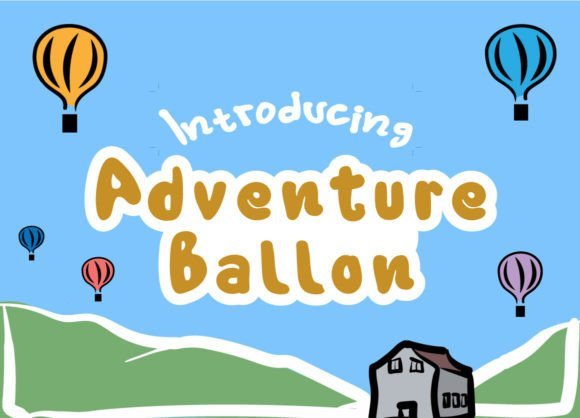
The Quest for the Perfect Font
Have you ever been stuck on a project, staring at a blank canvas, wondering which font will bring your creative vision to life? I know I have. It’s a moment we’ve all experienced as designers, when the right font can make all the difference. And that’s exactly why I’m excited to introduce you to the Adventure Ballon Font, a display font designed to take your projects to new heights.
This versatile font is perfect for a wide range of applications, from social media posts to branding projects, logo design, and even wedding invitations. With its unique handwriting taste, Adventure Ballon Font adds a personal touch to any project, making it stand out from the crowd.
Adventure Ballon Font Key Features
- Font Family: The font family is composed of 3 styles: Regular, Italic, and Bold, providing users with a variety of options for their designs.
- Resolution: The font is optimized for high-resolution displays, making it suitable for use in digital media and print materials.
- Unique Characteristics: The font features a playful, handwritten style with a sense of adventure and exploration, making it perfect for creating eye-catching headings and titles.
- Language Support: The font supports a wide range of languages, including Latin, Cyrillic, and Greek scripts, allowing users to create multilingual designs with ease.
Adventure Balloon Font Review
Overall, I think Adventure Balloon Font is a fun and quirky font that’s perfect for projects that need a playful touch. ✨ It’s got a unique, hand-drawn feel that’s reminiscent of classic children’s books. The font is highly customizable, with a wide range of styles and sizes to choose from.
One of the things I like most about Adventure Balloon Font is its versatility. ✨ It’s suitable for everything from advertising and marketing materials to packaging and editorial design. The font is also highly legible, making it a great choice for text-heavy projects.
- Unique, hand-drawn feel
- Wide range of styles and sizes
- Highly legible
- Perfect for playful, whimsical designs
- May not be suitable for formal or corporate projects
- Can be difficult to read in small sizes
- May require additional styling to make it work well in certain contexts
- Not as polished or refined as some other fonts
Overall, I think Adventure Balloon Font is a fun and creative choice for designers looking to add a playful touch to their projects. While it may have some limitations, it’s a great option for anyone looking to create something unique and eye-catching.
Tips for Getting the Most Out of the Adventure Balloon Font
To get the most out of the Adventure Balloon Font, try using it in creative and playful ways, such as:
- Using it for headings and titles to add a sense of adventure and excitement.
- Combining it with other fonts to create a unique and eye-catching typography.
- Using it for quotes and phrases to add a sense of whimsy and fun.